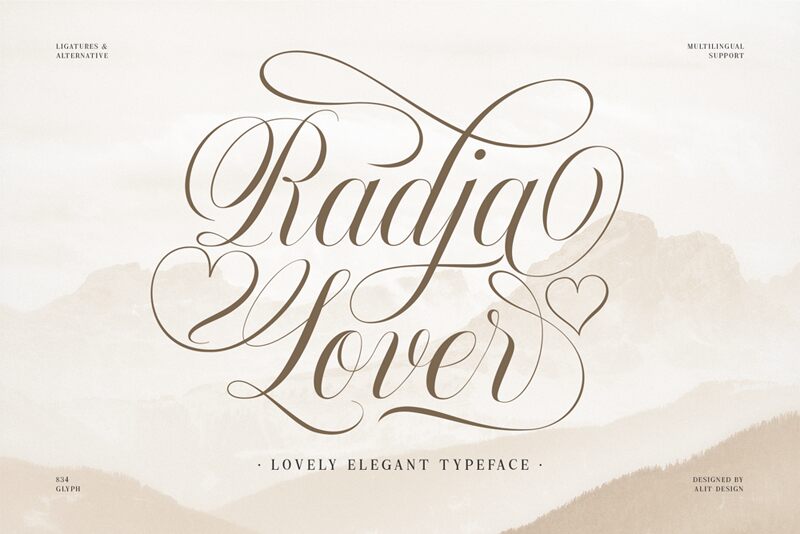
Radja Lover, crafted by the talented Alit Design, is an exquisite calligraphy font that exudes elegance and grace. With its semi-light weight, this font adds a touch of sophistication to any project. Its flowing strokes and delicate curves make it perfect for wedding invitations, love letters, and heartfelt quotes. Whether you're designing a romantic greeting card or creating an enchanting logo for a boutique, Radja Lover's charming style will captivate your audience. This versatile typeface is also well-suited for branding luxury cosmetics, high-end fashion labels, or even creating beautiful packaging designs that evoke emotions of love and tenderness.
Radja Lover